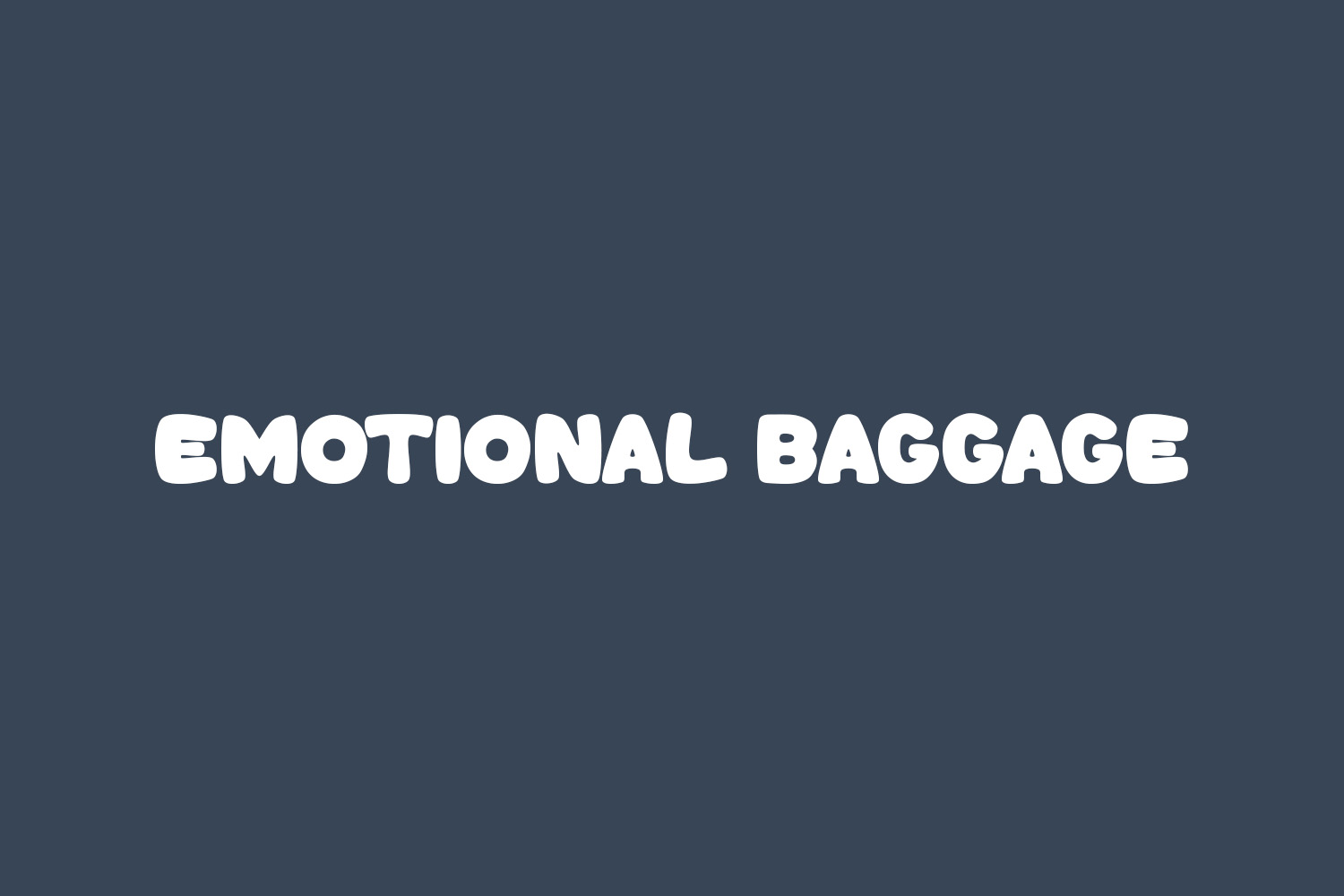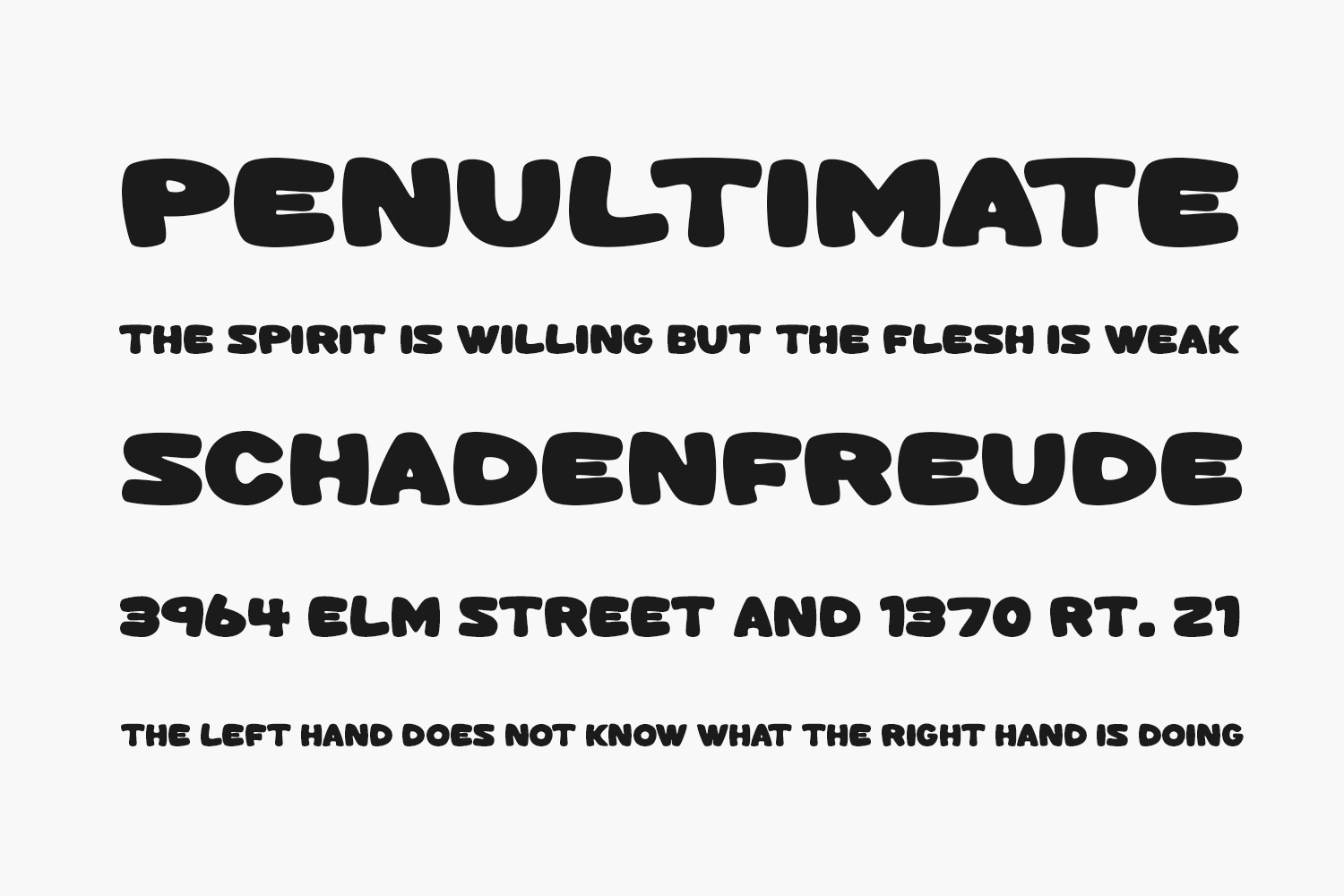
Infuse your greeting cards with whimsy and humor using our Emotional Baggage Free Font! This playful and eccentric typeface is ideal for crafting distinctive and unforgettable cards that are bound to bring smiles to your loved ones. With its bold and expressive lettering, this font effortlessly stands out, adding a dash of personality to your designs. Whether you’re aiming for a heartfelt message or a witty one-liner, Emotional Baggage has you covered. Don’t delay – impart a fun and lighthearted vibe to your greeting cards today with our cartoon-inspired Emotional Baggage font. Emotional Baggage Free Font is free for personal use only. Please purchase the full version for commercial use.